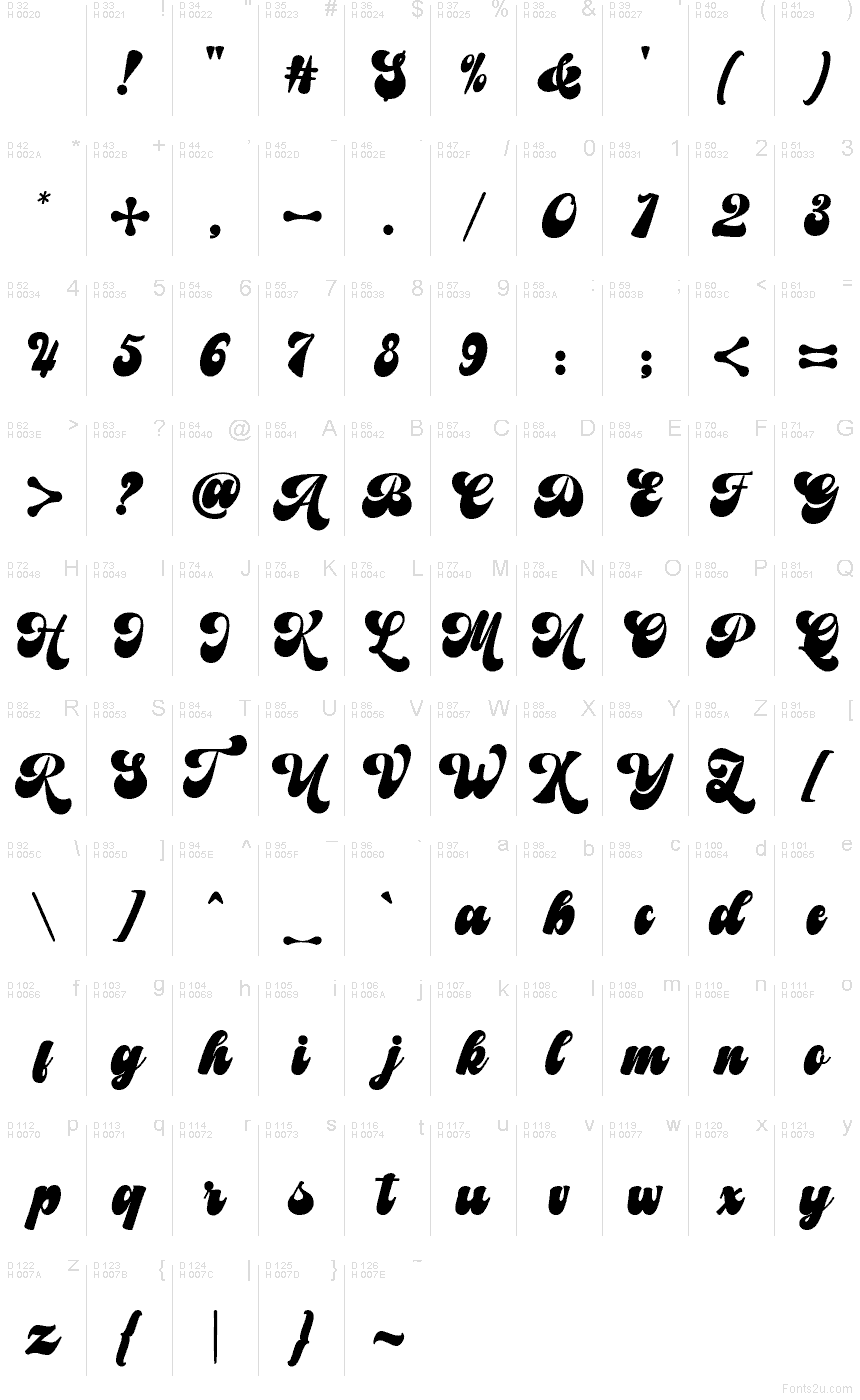
BrudyRetro
Brudy Retro font by LetterFreshStudio is a free retro brush script typeface with big, inky curves and chunky, joined letters that feel straight out of a hand-painted storefront sign. The strokes are bold and glossy, almost like wet paint frozen mid-swoop, giving your words a lush, oversized presence. Its flowing rhythm and tightly connected forms create a strong, unified wordmark that holds together even at large sizes.
Using Brudy Retro, you can bring throwback warmth to branding, café menus, vintage-style packaging, posters, social media graphics, and bold merch designs. This free font shines when you let it go big and spacious, with plenty of breathing room around each word. Pair it with a clean, condensed sans serif for supporting text to keep the brushy energy focused where it matters most.